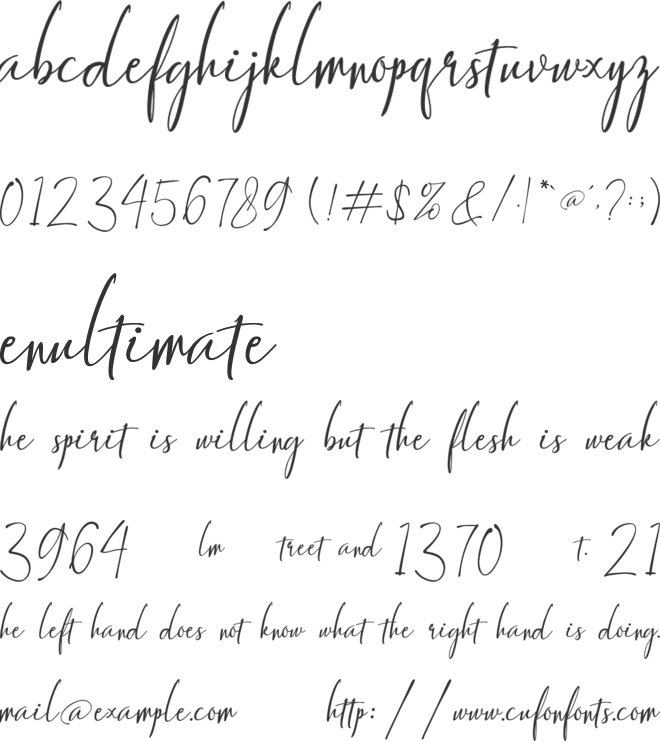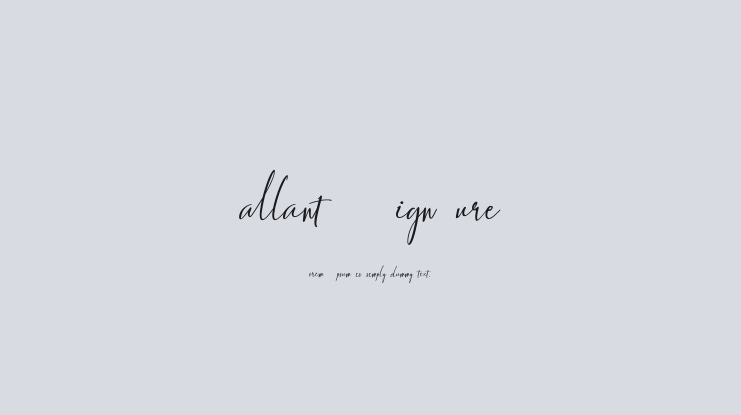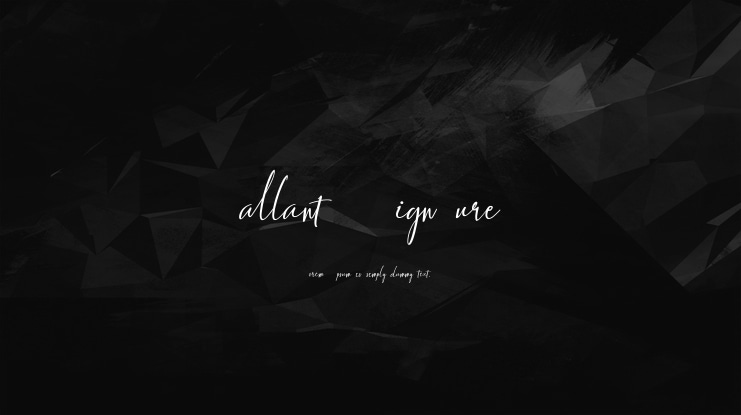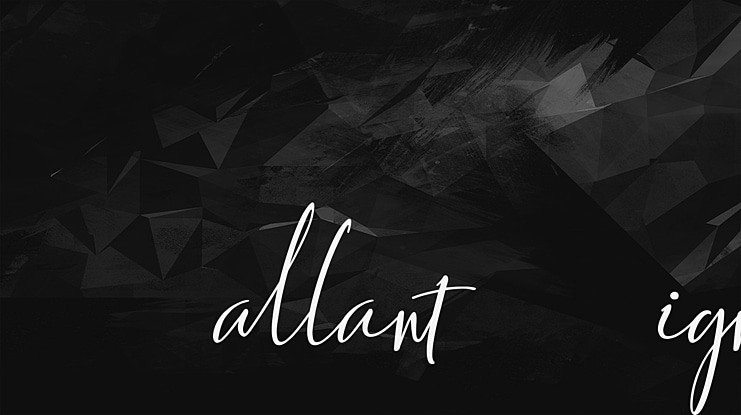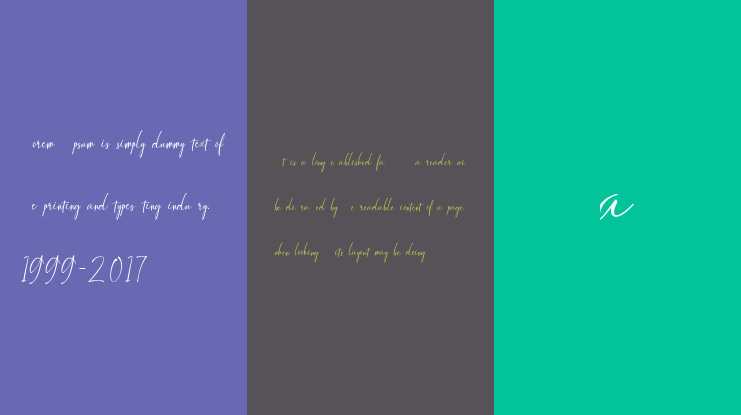
Gallant Signature Font
Gallant Signature font is of a kind handwritten calligraphy with new and modern hand strokes. This typeface has been added with various alternative characters. This type of writing is perfect for logos, fashion, stationery, magazines, menus, books, invitations, greeting cards, packaging, labels, clothing, marketing, business cards, etc.
Features:
- Latin base A-Z and a-z
- Numbers - Symbol
- Style Set
- Alternative Styles
- Ligature
- PUA encoding
- Multilingual